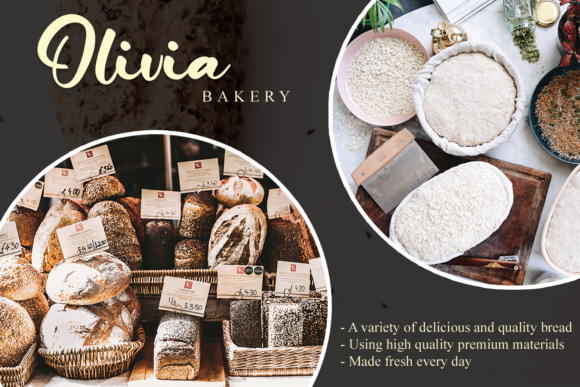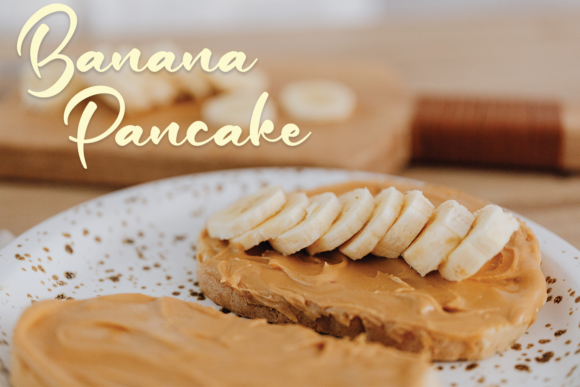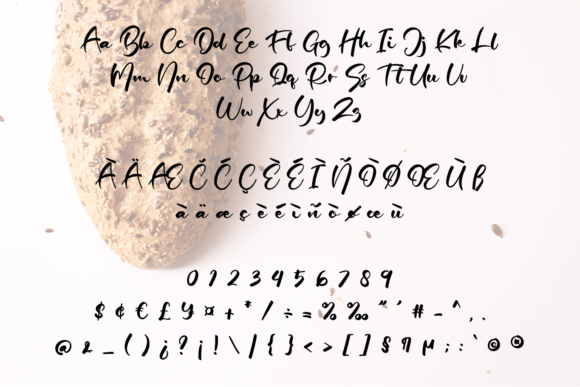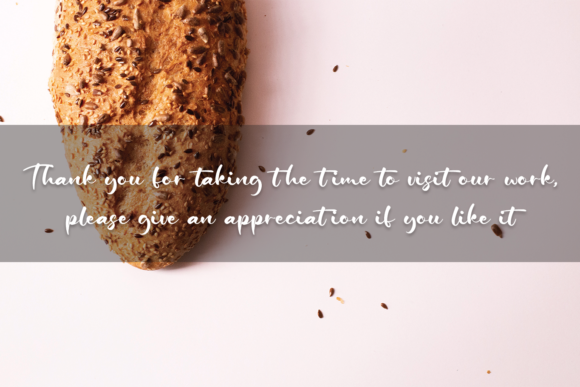
Introducing Halloween Font: A Lovely and Delicate Script Font for Elegant Designs
Halloween is just around the corner, but we’re not just talking about the spooky season. We’re excited to introduce Halloween Font, a lovely and delicate script font that’s perfect for adding a touch of elegance and class to your designs. This beautiful font is specifically crafted for designers, crafters, and anyone looking for a refreshing and sophisticated look.
What Makes Halloween Font Special?
Halloween Font is a unique and eye-catching script font that’s designed to make your designs stand out. Here are some of its special features:
- Elegant and Refined: Halloween Font boasts a sophisticated and elegant look that’s perfect for designs that require a touch of luxury and refinement.
- Delicate and Whimsical: The font’s delicate and whimsical feel makes it ideal for designs that require a playful and creative touch.
- Highly Versatile: Halloween Font can be used for a wide range of designs, from wedding invitations and party decorations to branding and advertising materials.
- Easy to Read: Despite its delicate nature, Halloween Font is highly legible and easy to read, making it perfect for body text and headlines.
Who Can Benefit from Halloween Font?
Halloween Font is perfect for a variety of designers and crafters, including:
- Graphic Designers: If you’re a graphic designer looking for a unique and elegant font for your next project, Halloween Font is an excellent choice.
- Wedding and Event Planners: This font is perfect for creating beautiful wedding invitations, party decorations, and other event materials.
- Crafters and DIY Enthusiasts: If you enjoy crafting and making things, Halloween Font is a great addition to your design toolkit.
- Branding and Advertising Professionals: This font can be used to create eye-catching and sophisticated branding and advertising materials.
Tips for Using Halloween Font
Here are some tips for getting the most out of Halloween Font:
- Pair it with Bold Fonts: Pair Halloween Font with bold and contrasting fonts to create visually appealing headlines and titles.
- Use it for Headlines and Titles: This font is perfect for headlines and titles, but it can also be used for body text and descriptions.
- Experiment with Colors: Halloween Font looks great in a variety of colors, so don’t be afraid to experiment and find the perfect color scheme for your design.
- Add Decorative Elements: Consider adding decorative elements, such as flourishes and swashes, to give your design an extra touch of elegance.
In conclusion, Halloween Font is a beautiful and elegant script font that’s perfect for designers and crafters looking to add a touch of sophistication and refinement to their designs. Its delicate and whimsical feel makes it ideal for a wide range of designs, from wedding invitations and party decorations to branding and advertising materials. With its high legibility and versatility, Halloween Font is a great addition to any design toolkit.